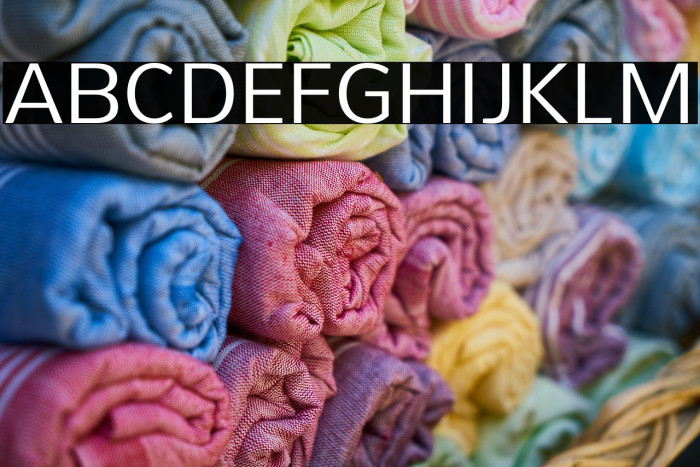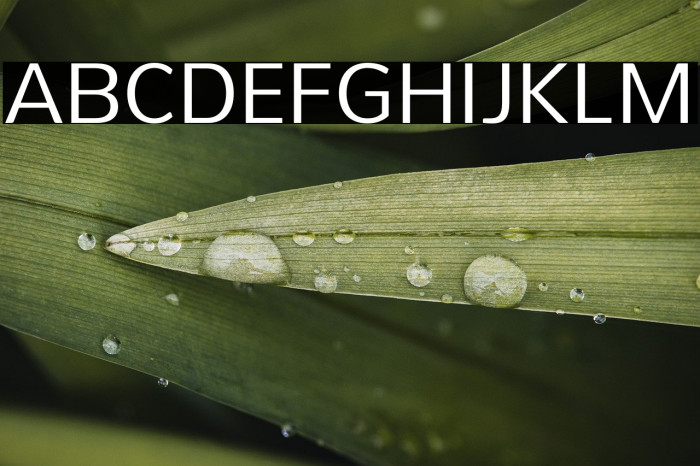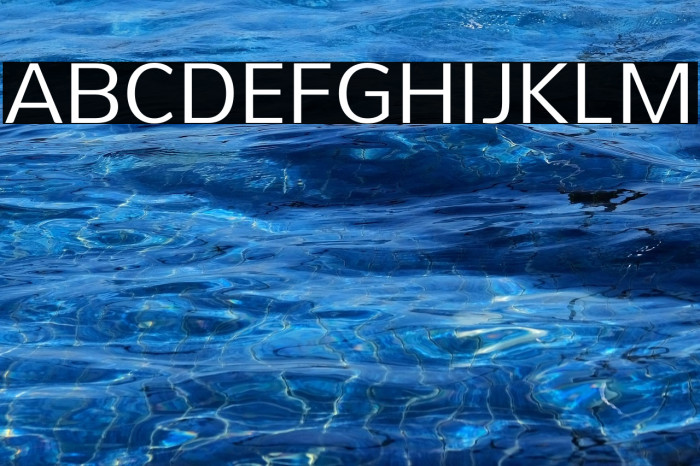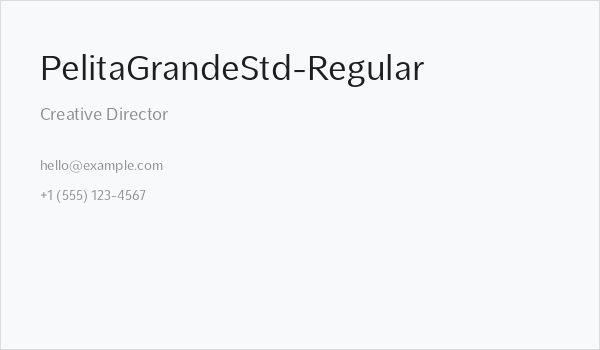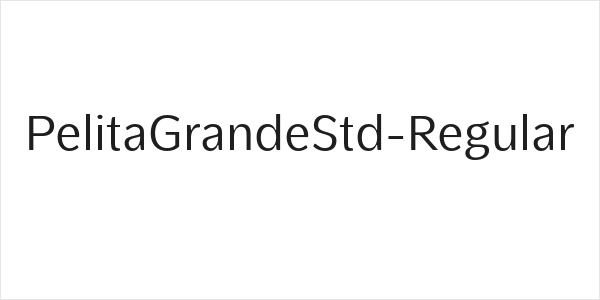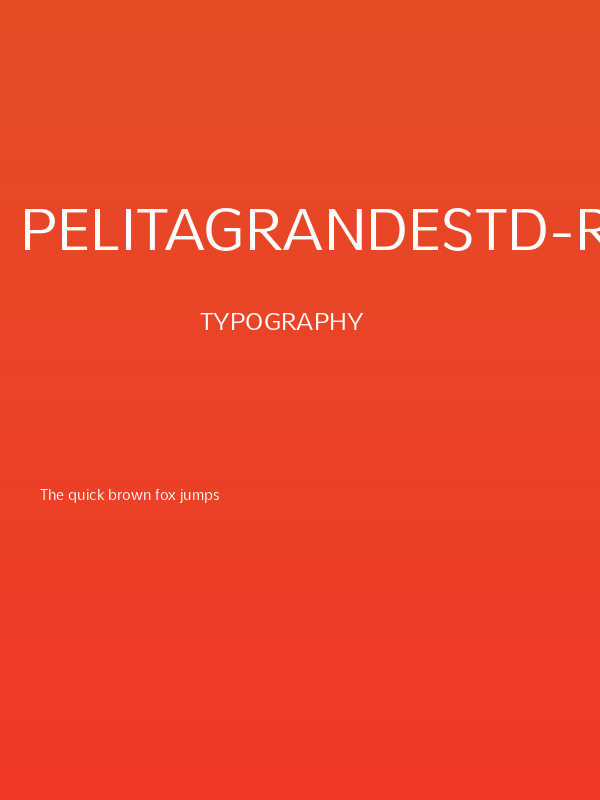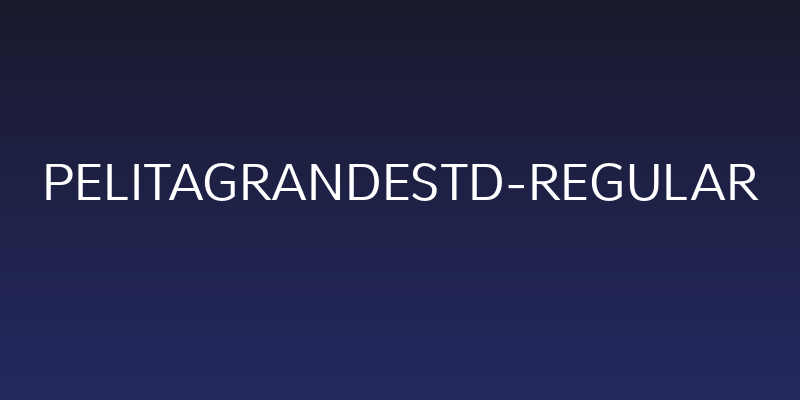
PelitaGrandeStd-Regular Font
PelitaGrandeStd-Regular Description
This typeface features a clean and modern design with a sans-serif style. The characters are well-proportioned, offering a harmonious balance between height and width. The strokes are consistent in thickness, providing a uniform appearance that enhances readability. The font exhibits a straightforward and uncluttered aesthetic, making it suitable for a wide range of applications. Its simplicity and clarity make it ideal for both digital and print media, ensuring legibility across various sizes and resolutions. The numerals and special characters are designed to complement the alphabet, maintaining the overall cohesive look of the typeface.
| Proposed Projects | Ideal for corporate branding, web design, user interfaces, and editorial layouts. |